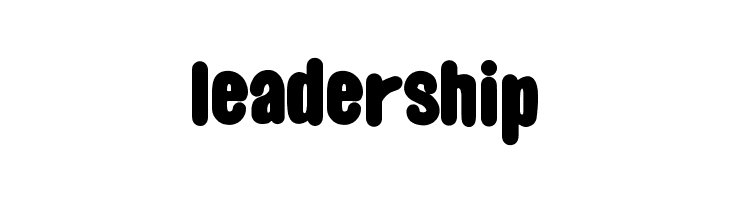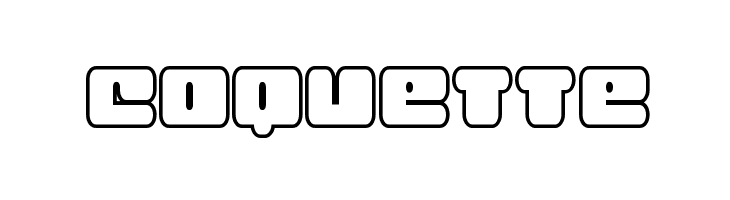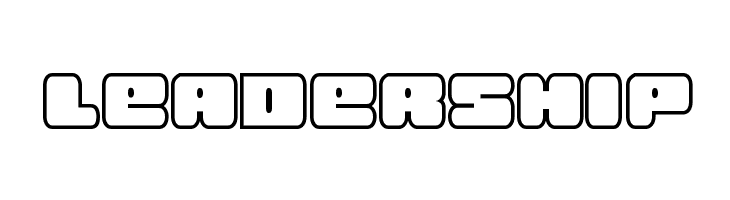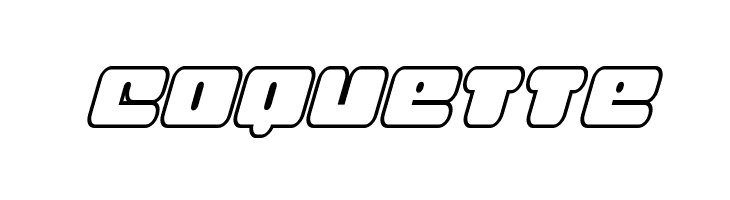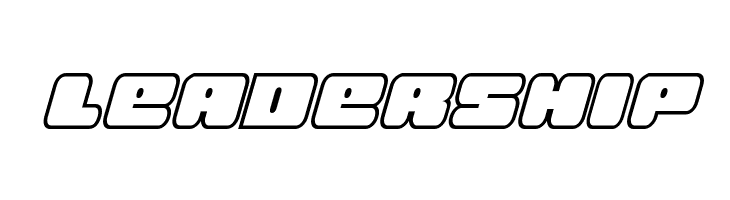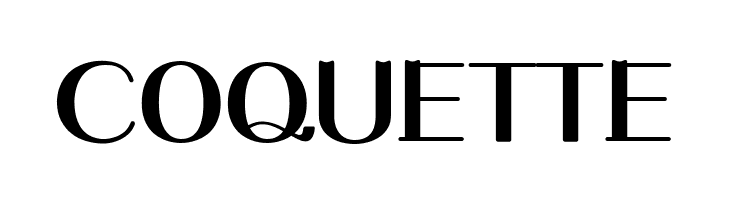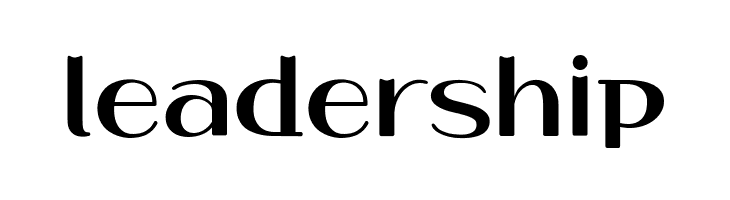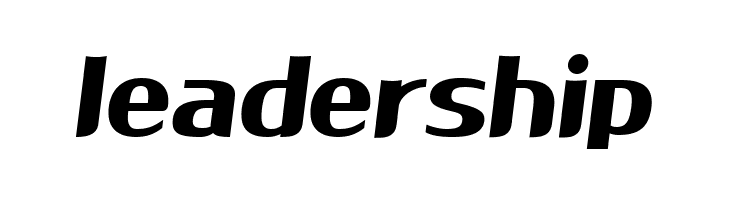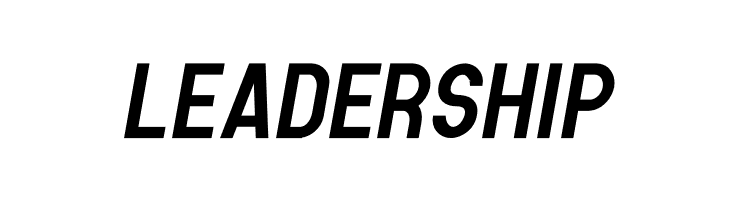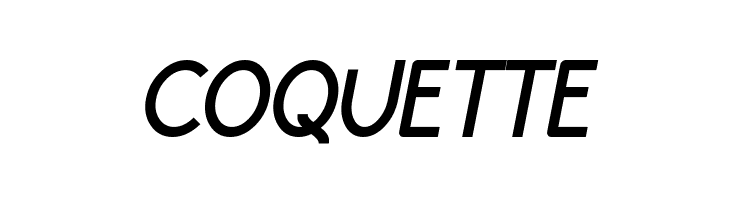
Bold, playful font with stars inside circles.
A bold, geometric font with an industrial and architectural style.
A bold, italicized font with a geometric and angular design.
A bold, medieval-inspired font with intricate, dramatic styling.
A bold, decorative font with medieval-inspired flourishes.
A bold, Gothic-style font with intricate outlines and decorative elements.
A decorative Blackletter font with intricate, ornate letterforms and a historical elegance.
A bold, impactful typeface with strong strokes and a vintage touch.
A bold italic font with dynamic strokes and a pronounced slant.
A bold, modern sans-serif font with clean lines and balanced proportions.
A bold, modern sans-serif font with clean lines and strong visual impact.
A bold, modern font with clean lines and medium contrast.
A bold, modern font with geometric shapes and rounded corners.
A bold, geometric font with a modern and structured aesthetic.
A bold, italicized font with a modern, sleek, and slightly condensed style.
A playful, bold font with rounded edges and a hand-drawn appearance.
A bold, outlined font with rounded, playful characters.
A bold, playful font with rounded, outlined characters.
A bold, italicized font with sharp angles and a modern, dynamic style.
A bold, modern font with thick strokes and strong presence.
A bold, italicized font with strong, thick strokes and a dynamic slant.
A bold, italicized font with a modern, futuristic style.
A bold, intricate blackletter font with sharp angles and dramatic strokes.
A geometric, angular font with a futuristic and technical look.
A bold, angular font with a futuristic and geometric design.
A bold, italic, futuristic font with sharp, angular lines.
A bold, geometric font with a futuristic and edgy design.
A bold, angular, and italicized font with a futuristic style.
A modern, angular italic font with a futuristic and geometric style.
A bold, playful font with rounded, thick letterforms.
A bold, playful script font with rounded, connected letterforms.
A bold, modern sans-serif font with clean lines and strong visual impact.